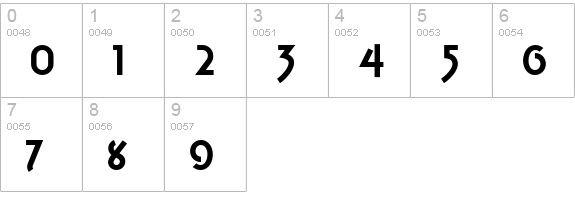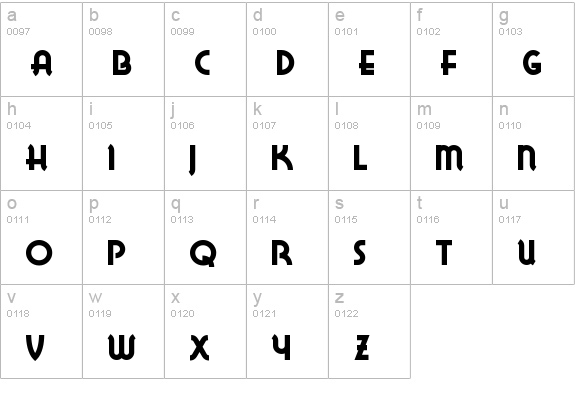
Lake Wobegon NF Font Details
Lake Wobegon NF font is a charming and whimsical typeface that brings a touch of nostalgia to any project. Its quirky and playful design makes it perfect for a variety of uses, from greeting cards to branding materials. With its unique personality, this font is sure to stand out and make a statement. The best part? Lake Wobegon NF font is available for free download at FontsMarket.com. This means you can easily add this delightful font to your collection without breaking the bank. Don't miss out on the opportunity to enhance your designs with this one-of-a-kind typeface - download Lake Wobegon NF today and let your creativity shine!